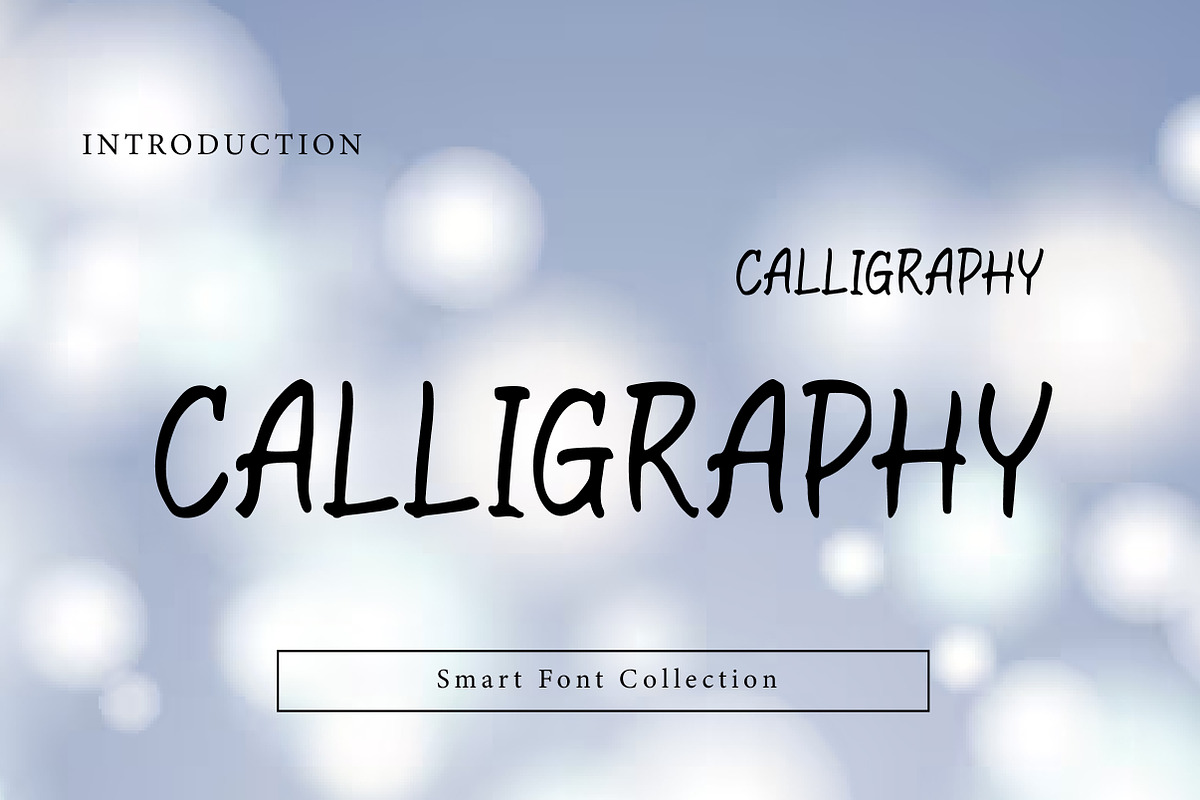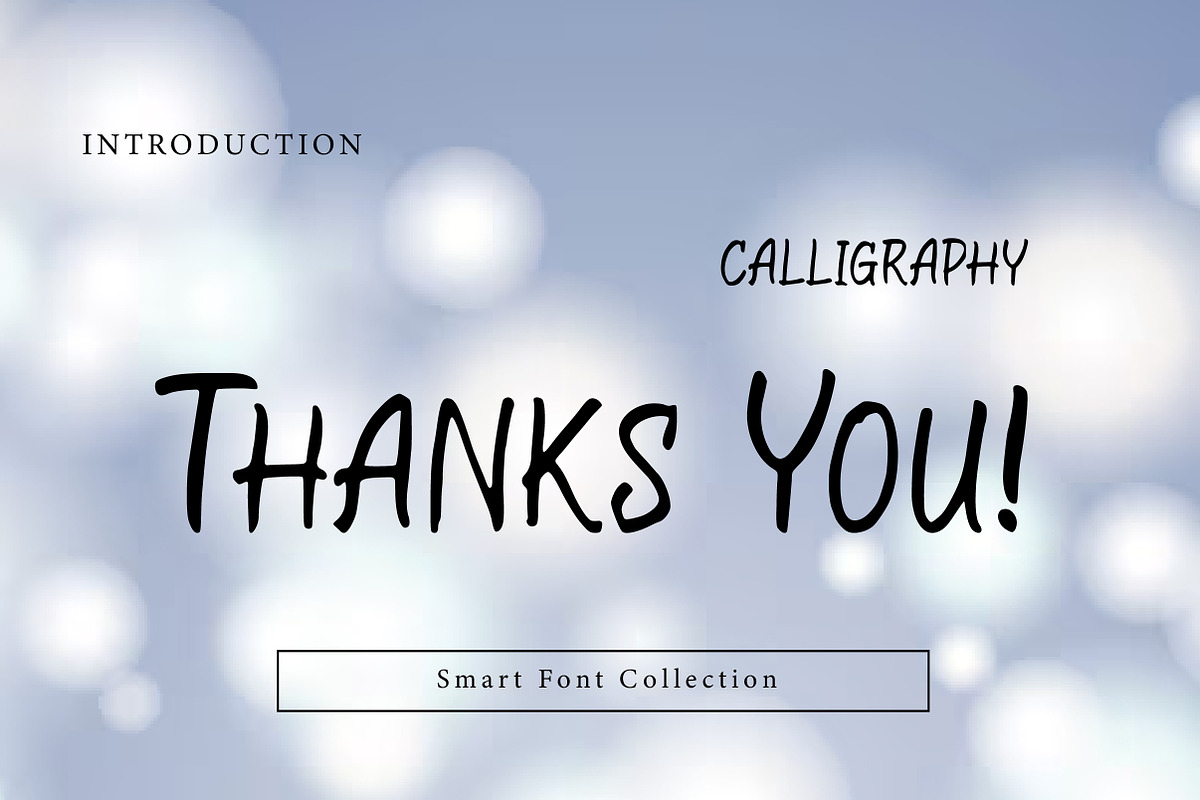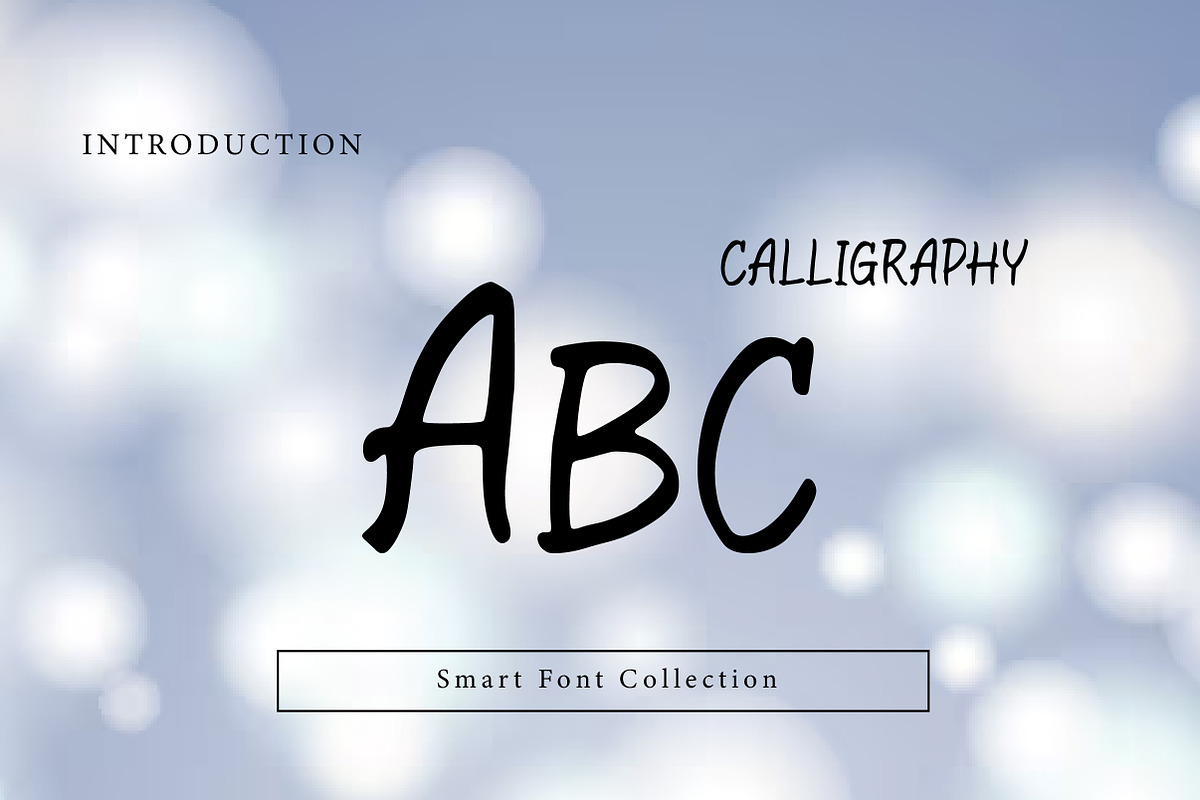
Calligraphy
Calligraphy is a natural, expressive handwritten calligraphy-style display font with fluid strokes, organic movement, and a relaxed artistic feel. Inspired by casual pen lettering, it’s ideal for quotes, posters, branding, invitations, social media graphics, packaging, and creative editorial designs where a personal, handcrafted touch is desired. Calligraphy feels elegant yet informal, expressive yet readable.